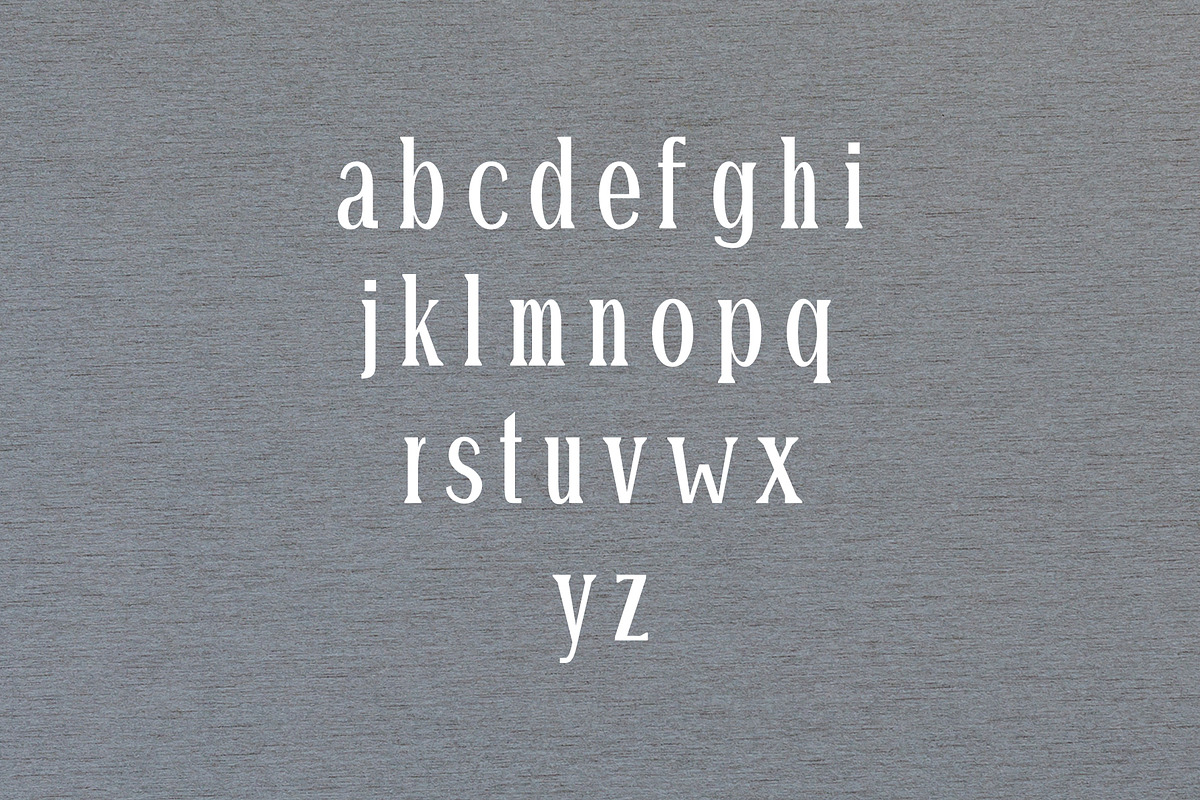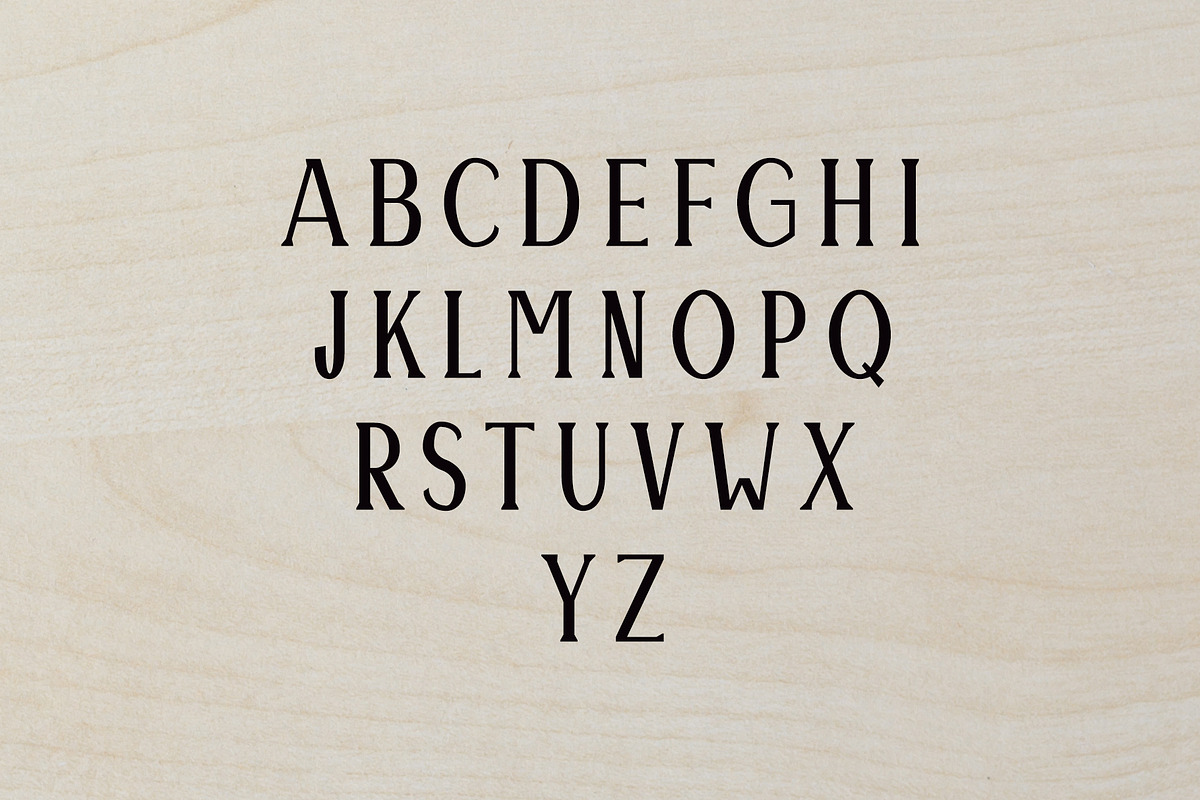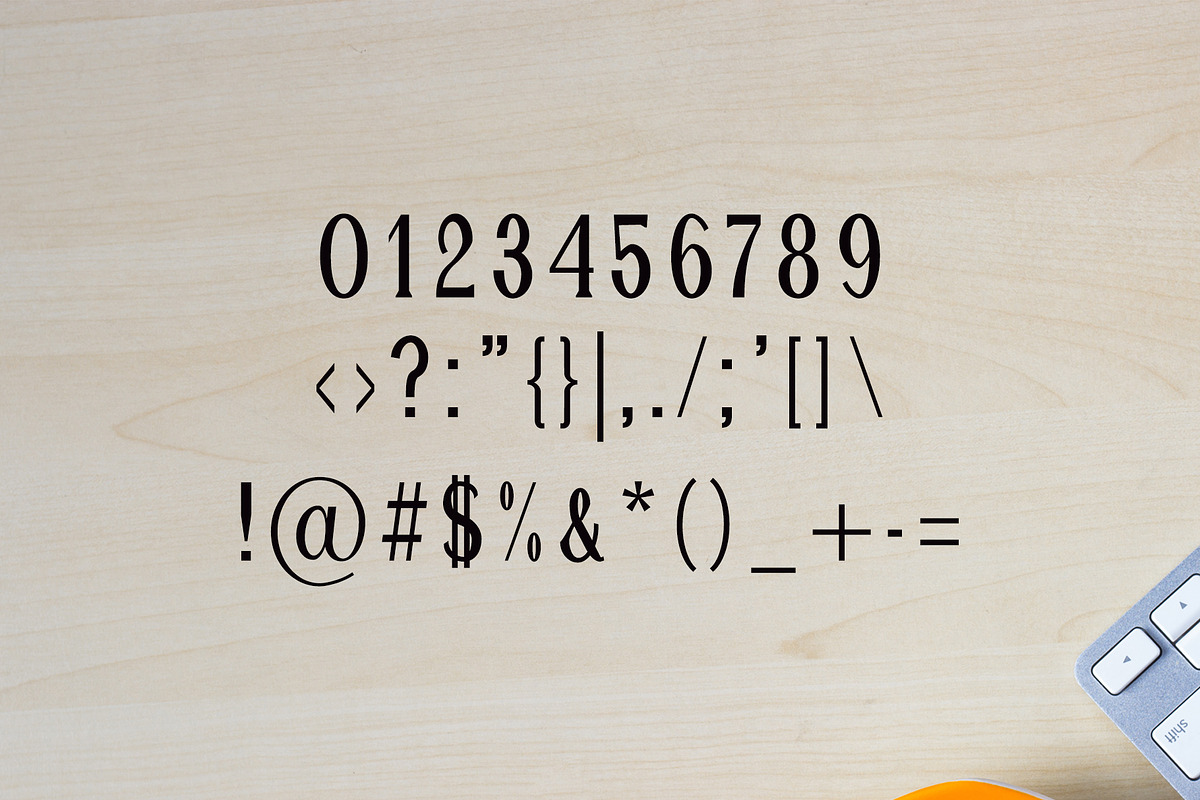
Montrell Serif 5 Font Family Pack
Montrell Serif 5 Font Family Pack by Creativetacos is a font selected for branding, posters, packaging, typography.
Why Montrell Serif 5 Font Family Pack is worth a look
Montrell Serif 5 Font Family Pack by Creativetacos fits naturally into Branding, posters, packaging, typography.